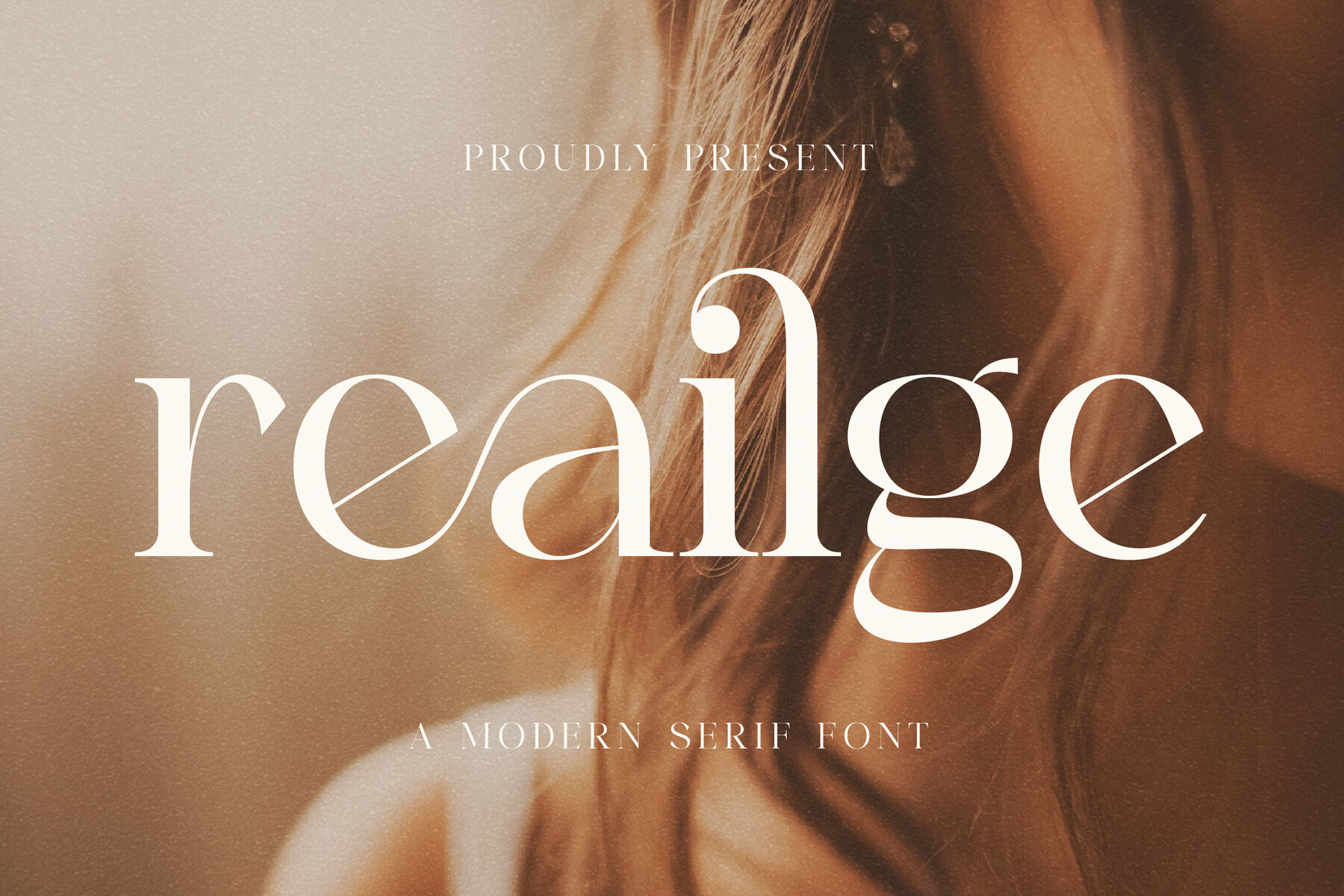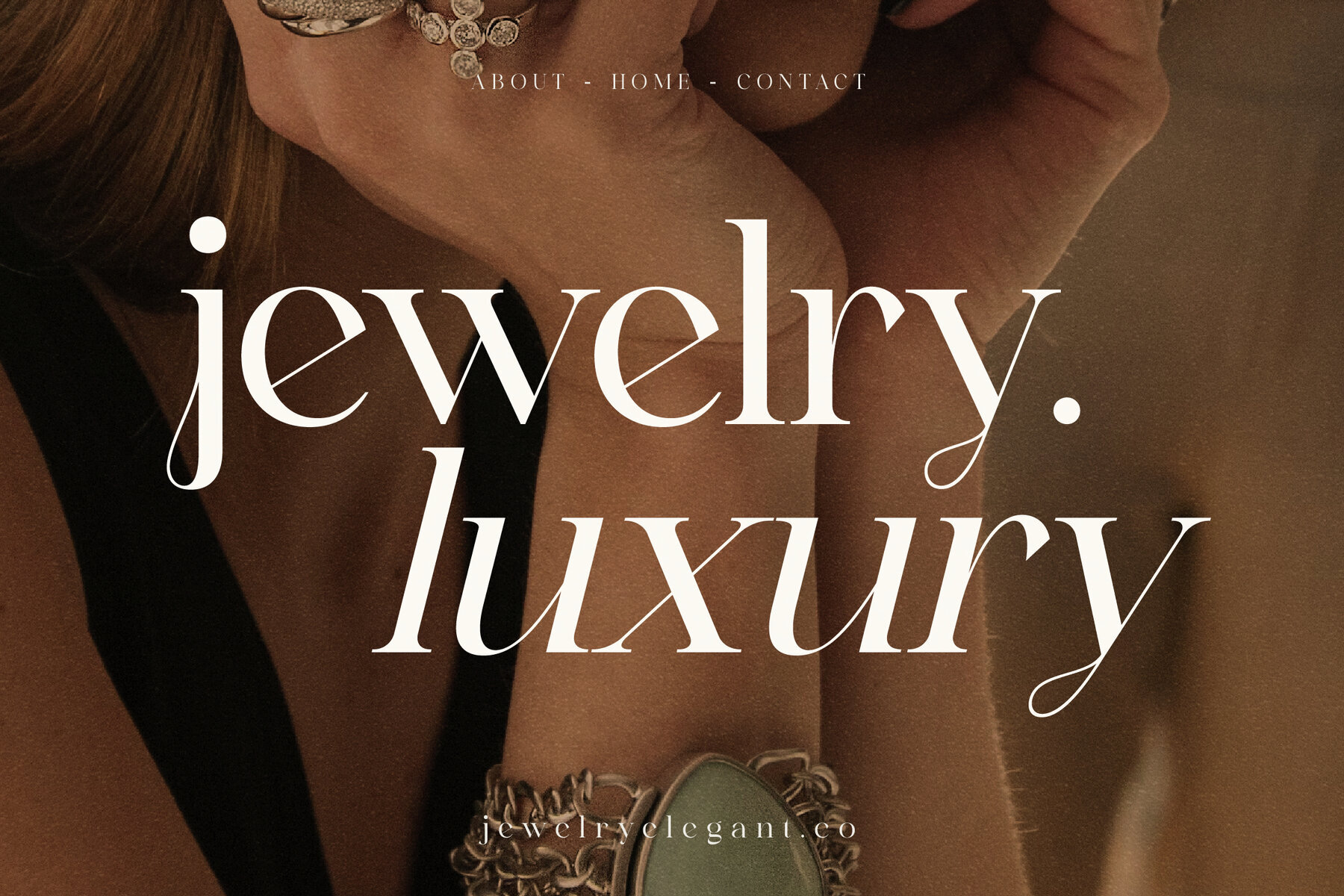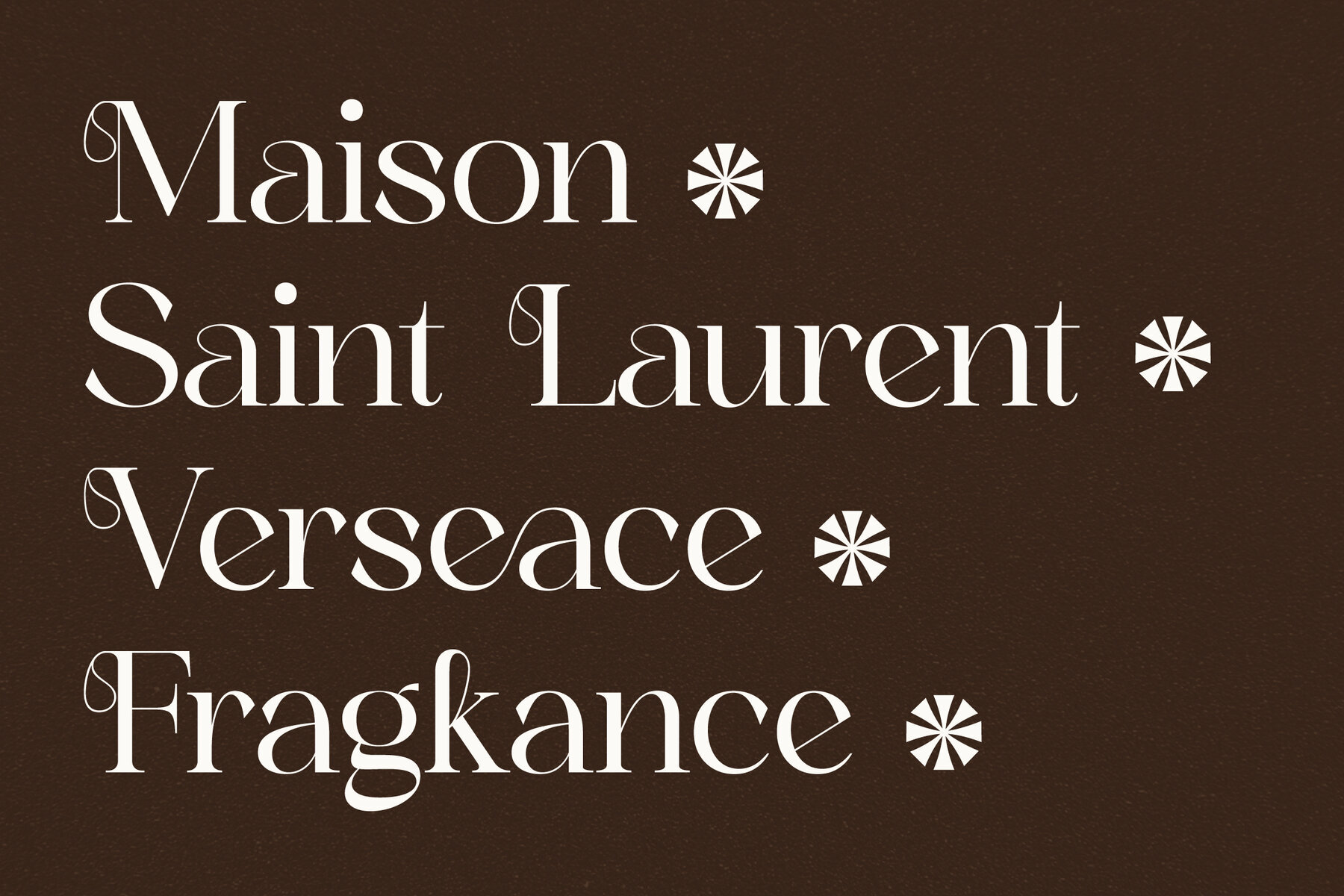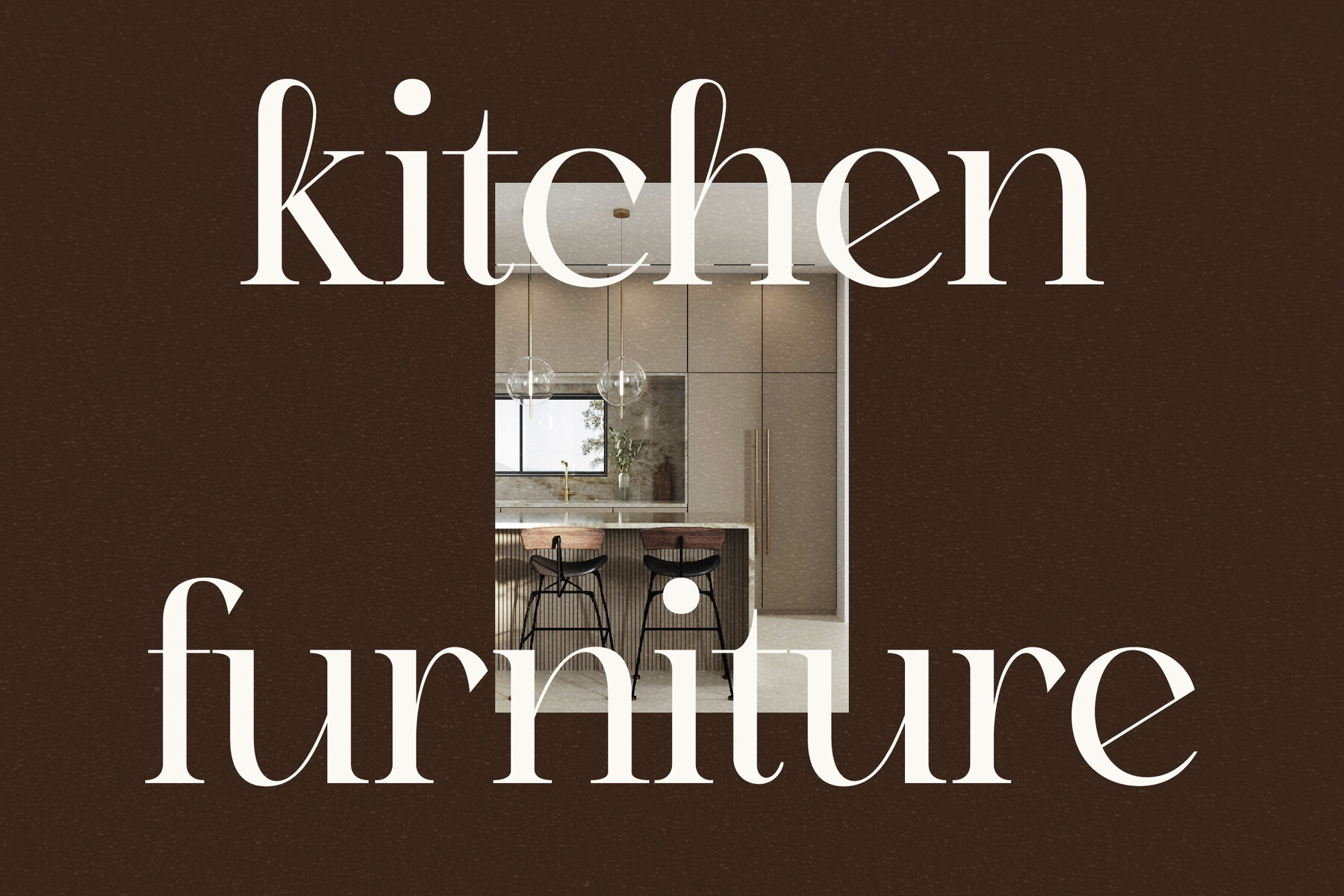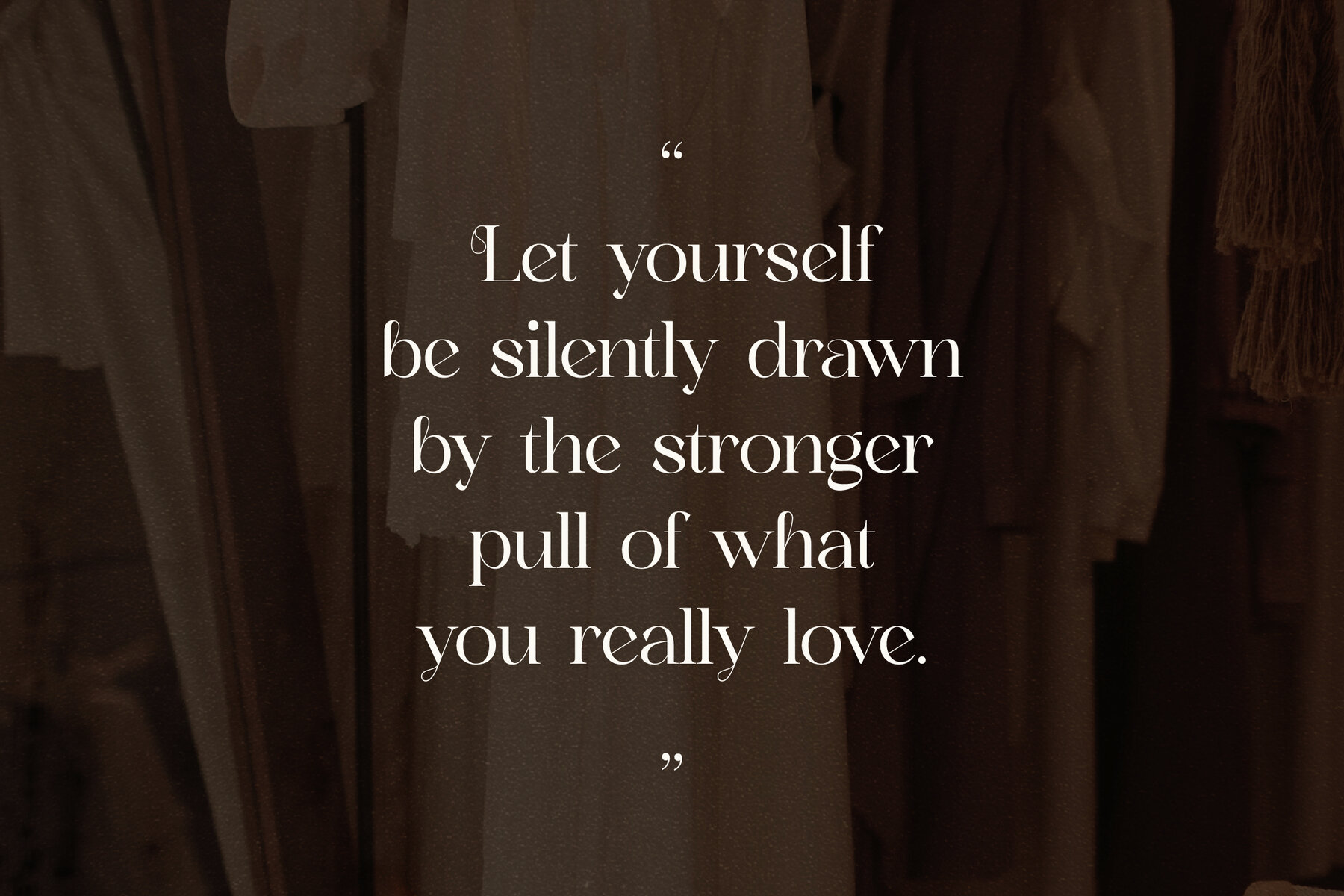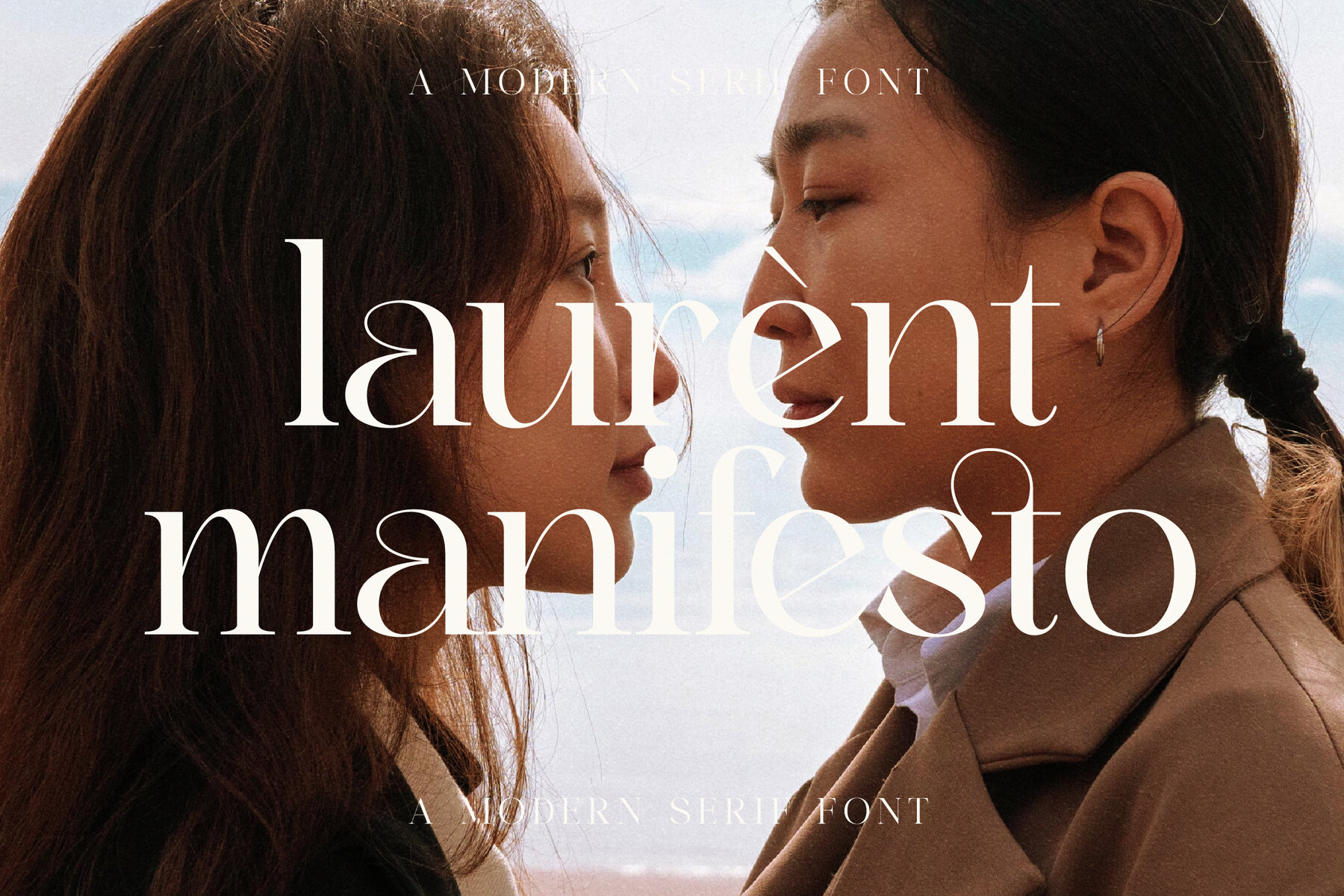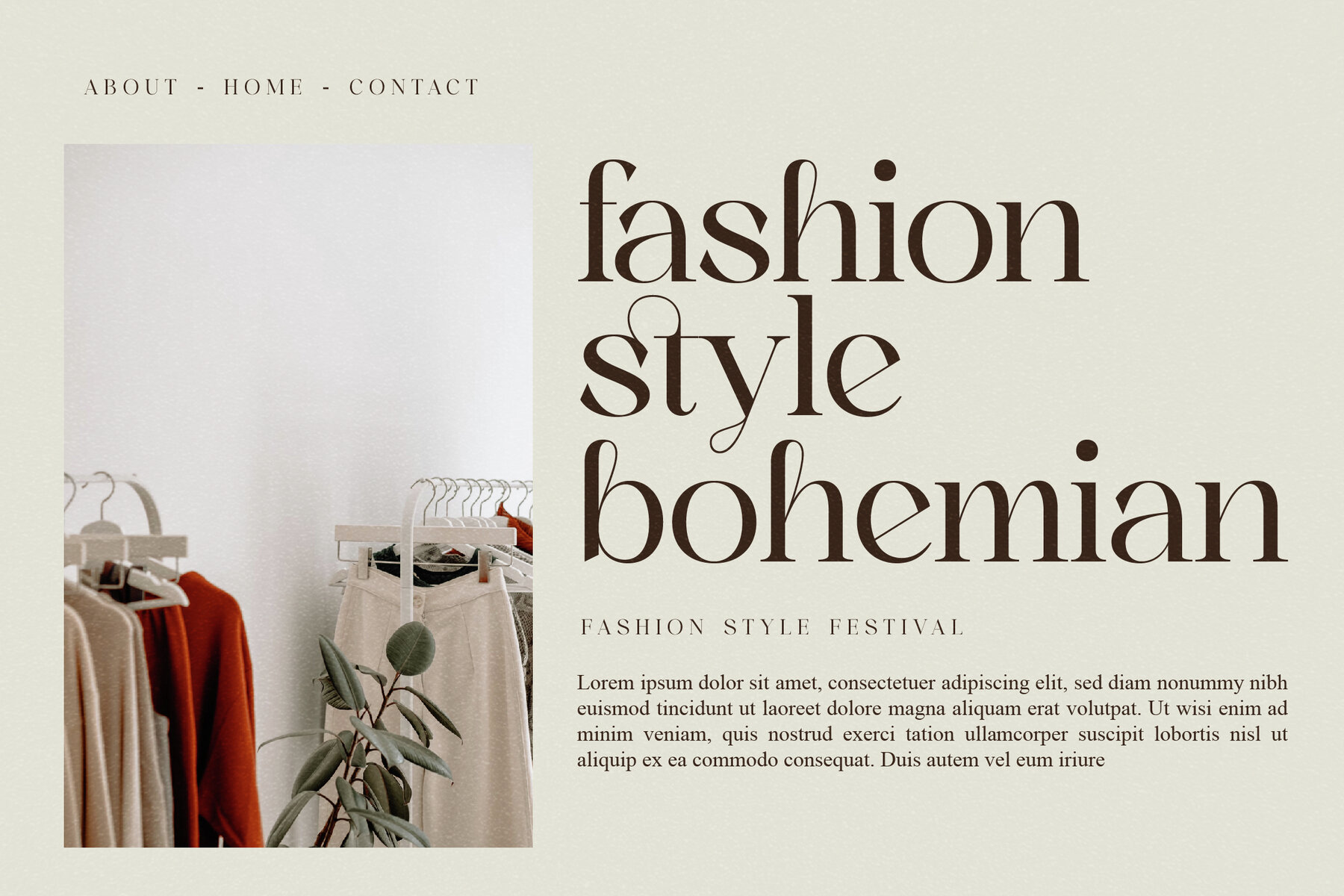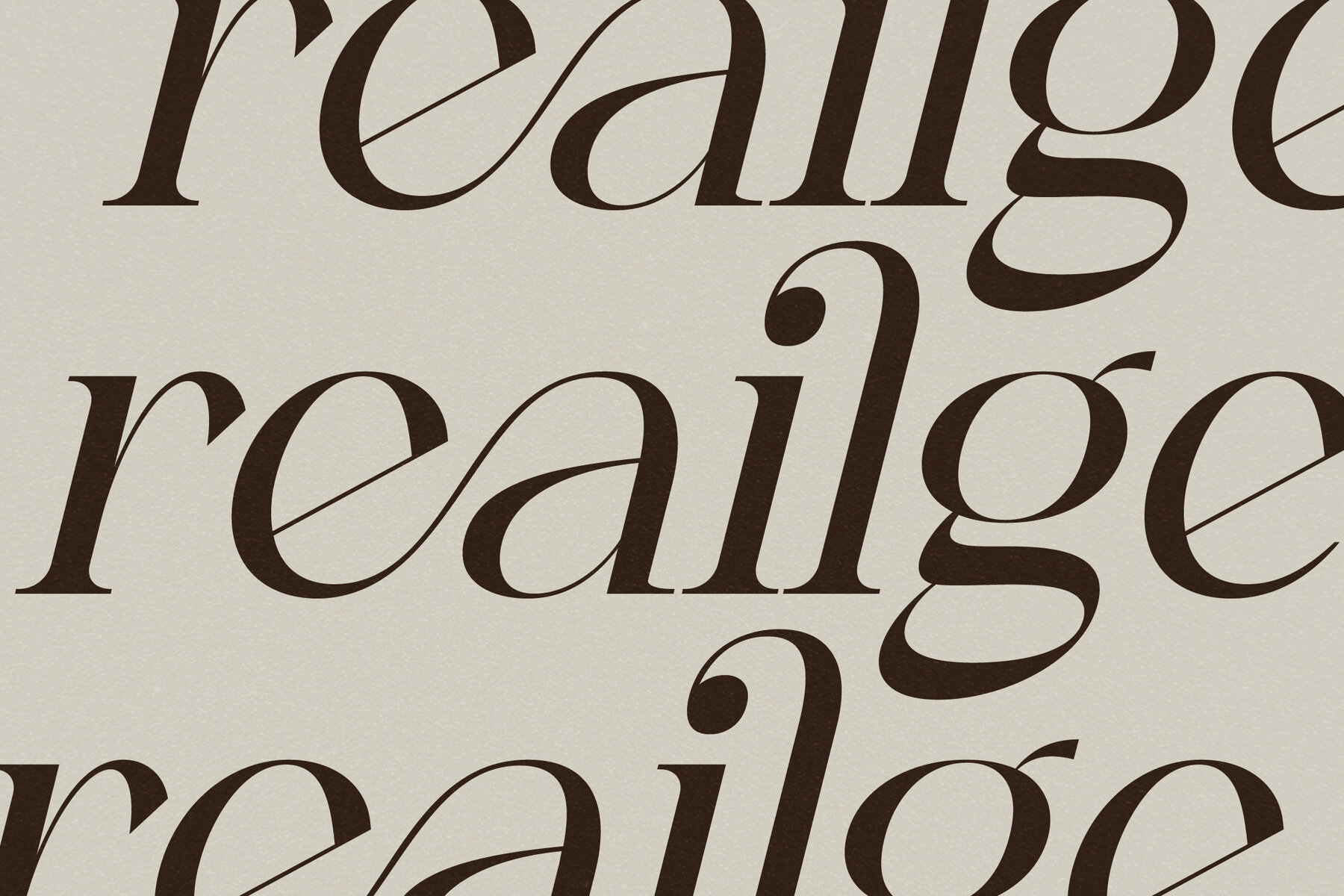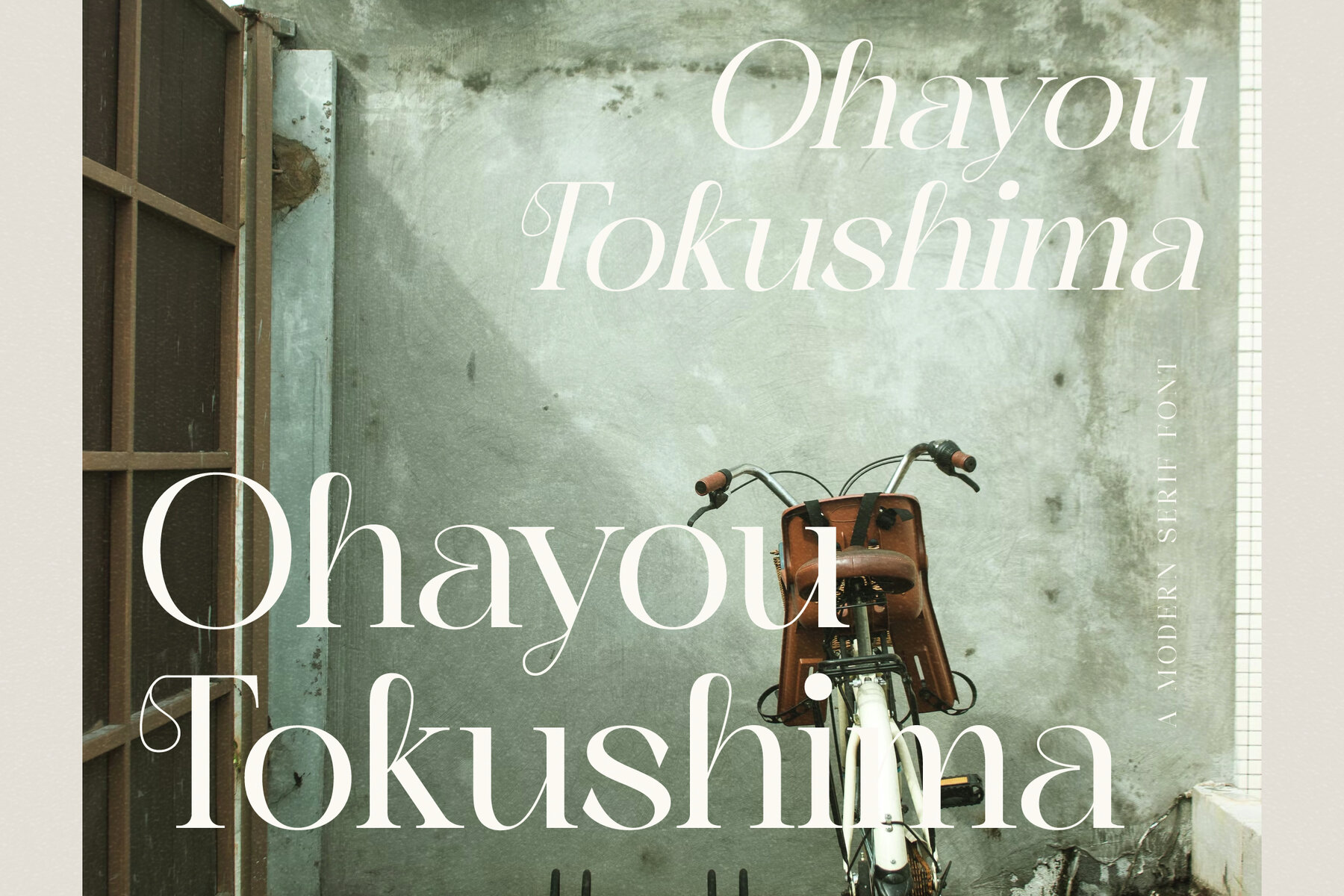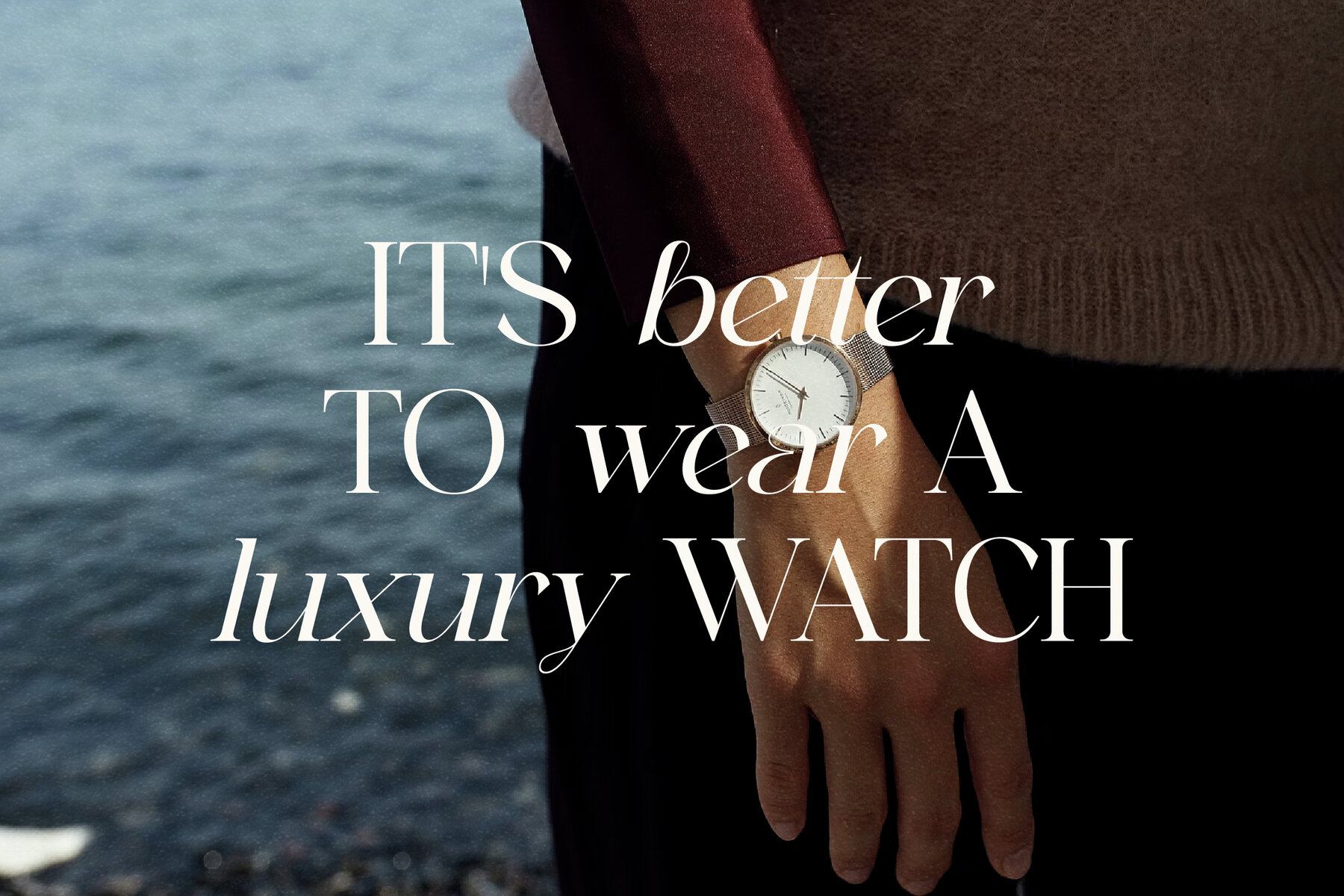
Reailge Font
Reailge Typeface by Storytype Studio seamlessly combines modern and classic serif elements, creating a distinctive and contemporary aesthetic. Ideal for a wide range of design projects, including logos, book and movie titles, fashion brands, magazines, clothing designs, and quotes, Reailge provides a touch of elegance and luxury to any creative endeavor.